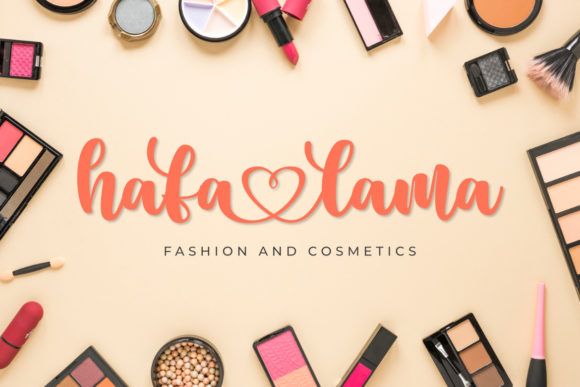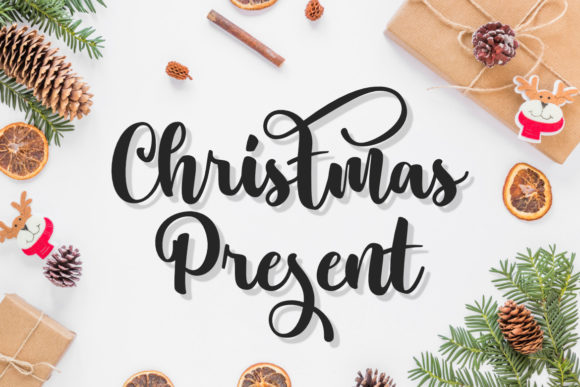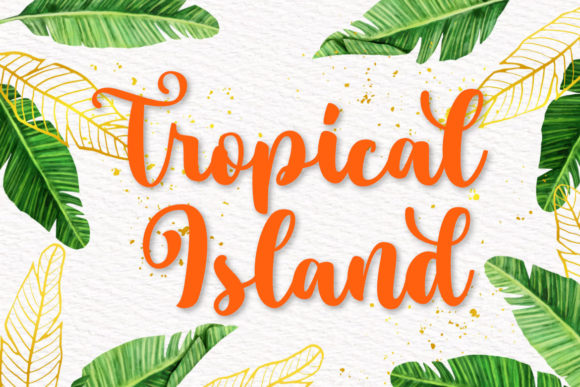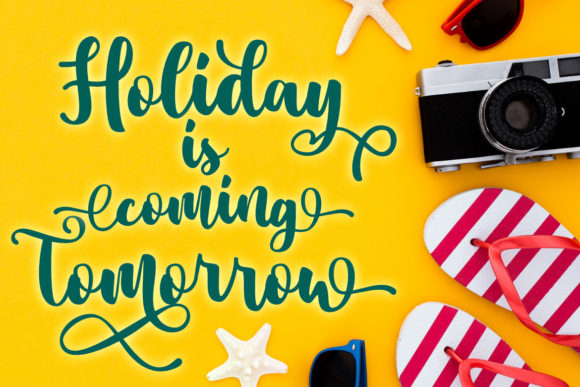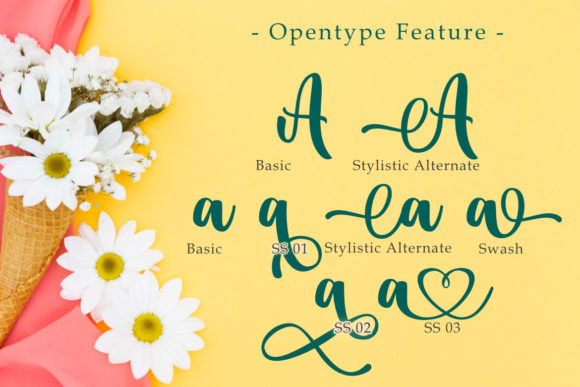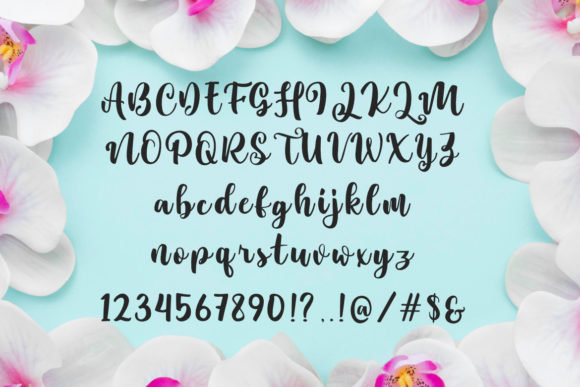
Gatcha Font: Elevate Your Designs with a Beautiful Handwritten Style
Are you looking for a font that can add a touch of elegance and sweetness to your designs? Look no further than the Gatcha Font! This stunning handwritten font is perfect for designers and crafters who want to create beautiful and professional-looking projects. In this article, we’ll dive into the features and benefits of the Gatcha Font, and explore how it can elevate your designs to the next level.
A Fresh, Clean, and Elegant Font
The Gatcha Font is a beautiful and sweet handwritten font that is sure to impress. Its fresh, clean, and elegant style makes it perfect for a wide range of projects, from formal to informal. Whether you’re designing a wedding invitation, a business card, or a social media graphic, the Gatcha Font is sure to make your design stand out.
One of the best features of the Gatcha Font is that it is PUA (Private Use Area) encoded. This means that you can access all of the glyphs and swashes with ease, giving you complete creative control over your design. With the Gatcha Font, you can easily add flourishes and decorative elements to your design, making it truly unique and eye-catching.
The Gatcha Font is incredibly versatile and can be used for a wide range of projects. Here are just a few ideas to get you started:
- Business cards and branding materials
- Signs and posters
Why Choose the Gatcha Font?
So why choose the Gatcha Font over other fonts? Here are just a few reasons:
- Unique and eye-catching: The Gatcha Font has a unique and eye-catching style that is sure to make your design stand out.
- Elegant and sophisticated: The Gatcha Font has an elegant and sophisticated style that is perfect for formal and informal projects.
- Easy to use: The Gatcha Font is PUA encoded, making it easy to access all of the glyphs and swashes.
- Versatile: The Gatcha Font can be used for a wide range of projects, from wedding invitations to social media graphics.
Tips for Using the Gatcha Font
Here are a few tips for using the Gatcha Font in your designs:
- Pair it with a bold font: The Gatcha Font is elegant and sophisticated, so try pairing it with a bold font to create a striking contrast.
- Use it for headings: The Gatcha Font is perfect for headings and titles, so try using it to add a touch of elegance to your design.
- Experiment with swashes: The Gatcha Font has a range of swashes and glyphs that you can use to add decorative elements to your design.
The Gatcha Font is a beautiful and sweet handwritten font that is perfect for designers and crafters who want to create stunning and professional-looking projects. With its fresh, clean, and elegant style, and PUA encoding for easy access to glyphs and swashes, the Gatcha Font is sure to elevate your designs to the next level. Whether you’re designing a wedding invitation, a business card, or a social media graphic, the Gatcha Font is a great choice. So why wait? Download the Gatcha Font today and start creating beautiful designs!